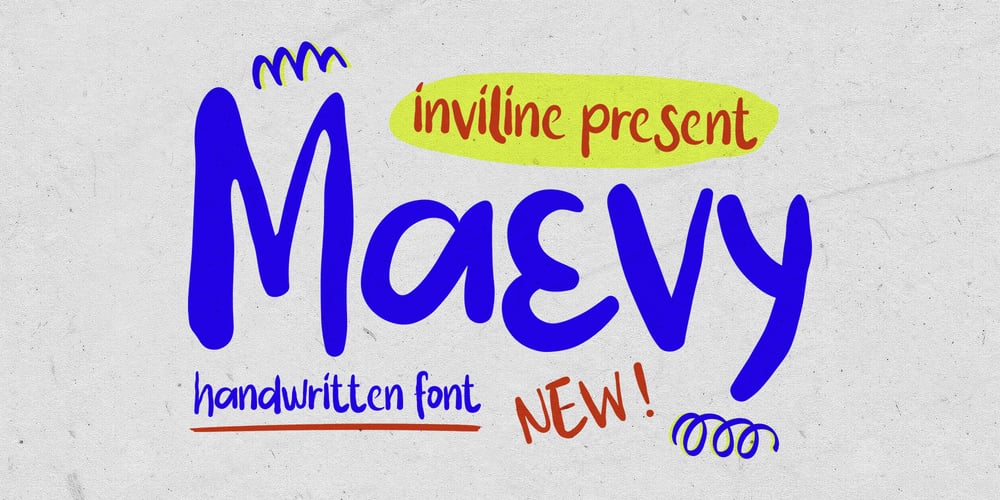
Maevy
Maevy font
Maevy Font Family was designed by Virgiawan Listanto and published by Inviline. Maevy contains 1 styles and family package options. Brush Handwritten Font is a stylish and versatile typeface designed to mimic the natural, fluid strokes of hand-drawn lettering. With its casual, organic appearance, it adds a personal and artistic touch to designs, making it ideal for creative projects, branding, invitations, and social media graphics. Its varied stroke widths and slightly irregular shapes give it an authentic, human feel, perfect for conveying warmth and creativity.